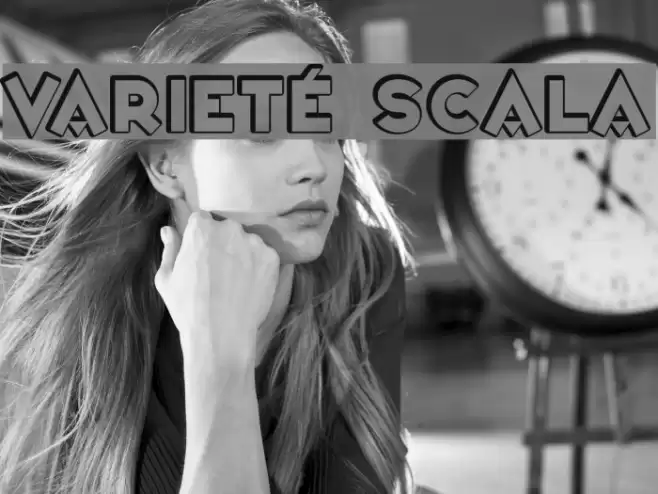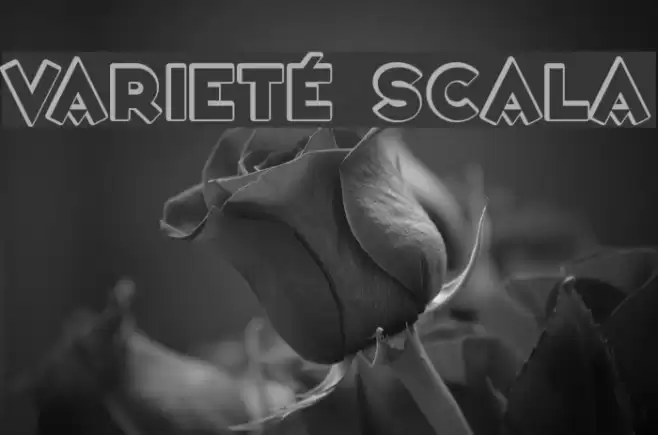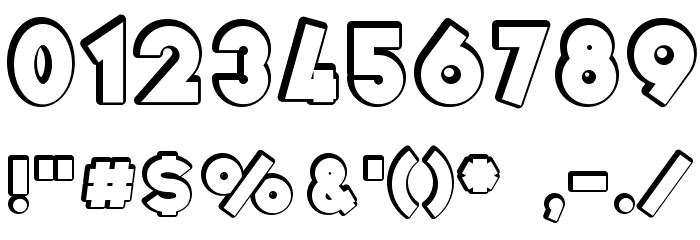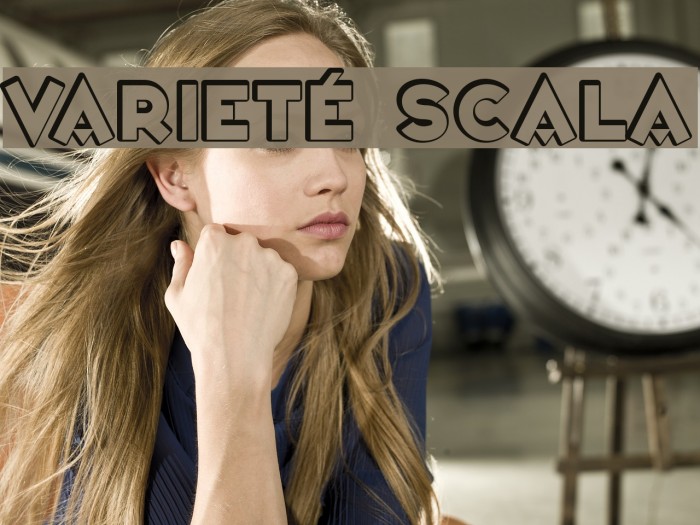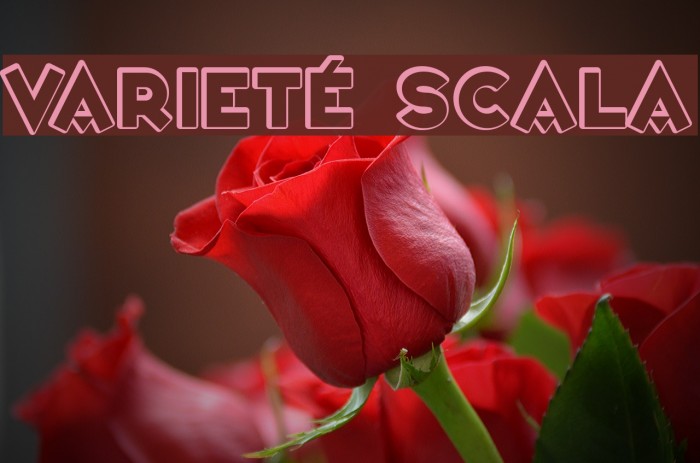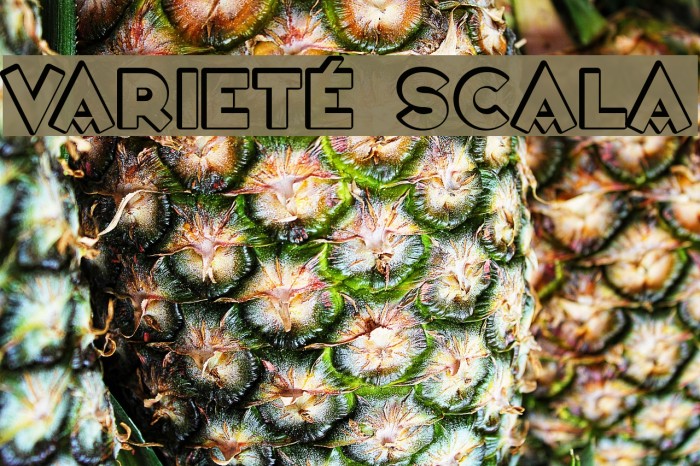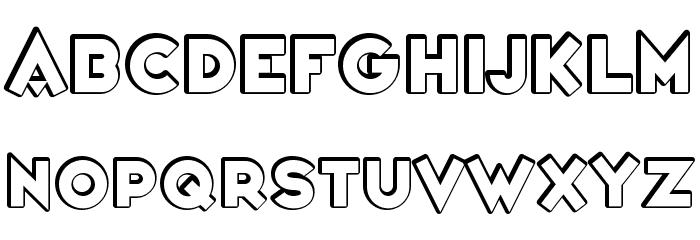
Varieté Scala Font
Varieté Scala Description
This font features a bold, geometric style with a strong presence. The letters are outlined, giving a three-dimensional effect that adds depth and interest. The uppercase and lowercase letters maintain a consistent width, creating a harmonious look. The numbers and special characters follow the same design principles, ensuring uniformity across all glyphs. The font's boldness and unique outline make it stand out, making it ideal for attention-grabbing designs. Its structured form and clear lines suggest a modern and innovative aesthetic, suitable for various creative projects.
A bold, geometric font with outlined letters for a three-dimensional effect from Uncategorized fonts.
- Proposed Projects: Ideal for posters, headlines, branding, and any project requiring a strong visual impact.